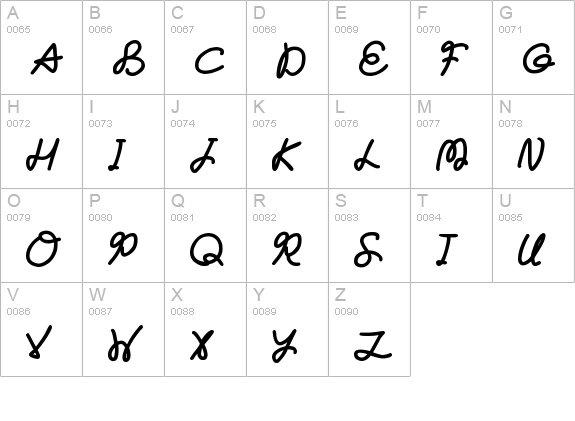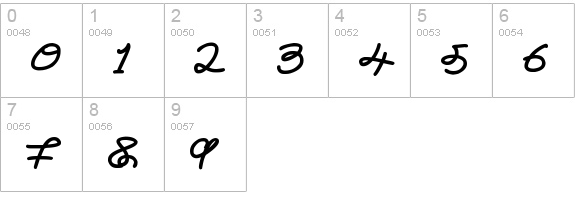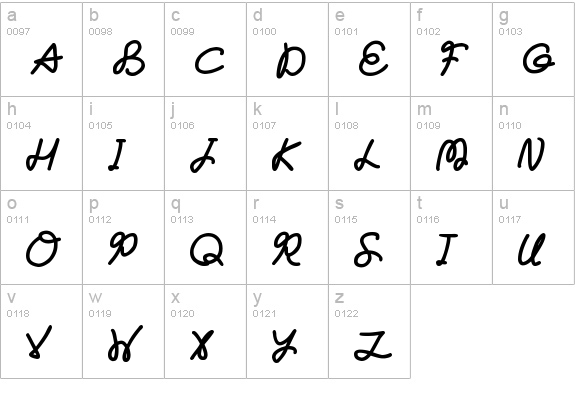
Forever Font Details
Forever is a free for personal use font in the Script category, designed by Darrell Flood. It has been downloaded 19 times and is available for Windows, Mac and Linux.
Forever font is a stunning and elegant typeface that exudes timeless beauty and sophistication. Its graceful curves and delicate lines make it perfect for adding a touch of class to any design project. Whether you are creating wedding invitations, branding materials, or elegant packaging, Forever font will elevate your work to the next level.